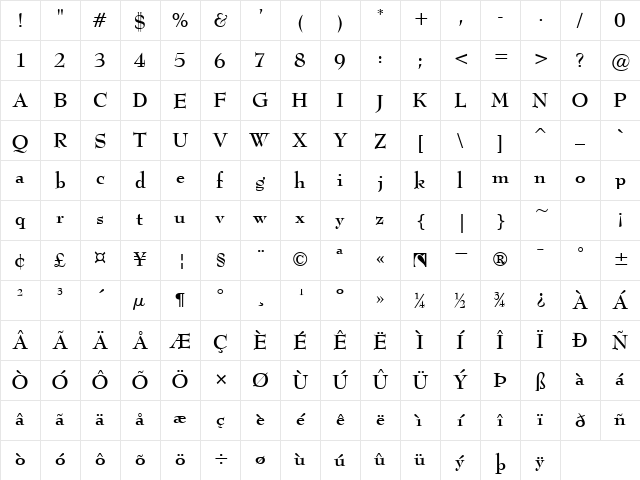
Complete Bernard fed glyph index. Displaying only characters natively supported by Bernard fed font.
Bernard is a composed and adaptable typeface that performs quietly and consistently across a wide range of design contexts.